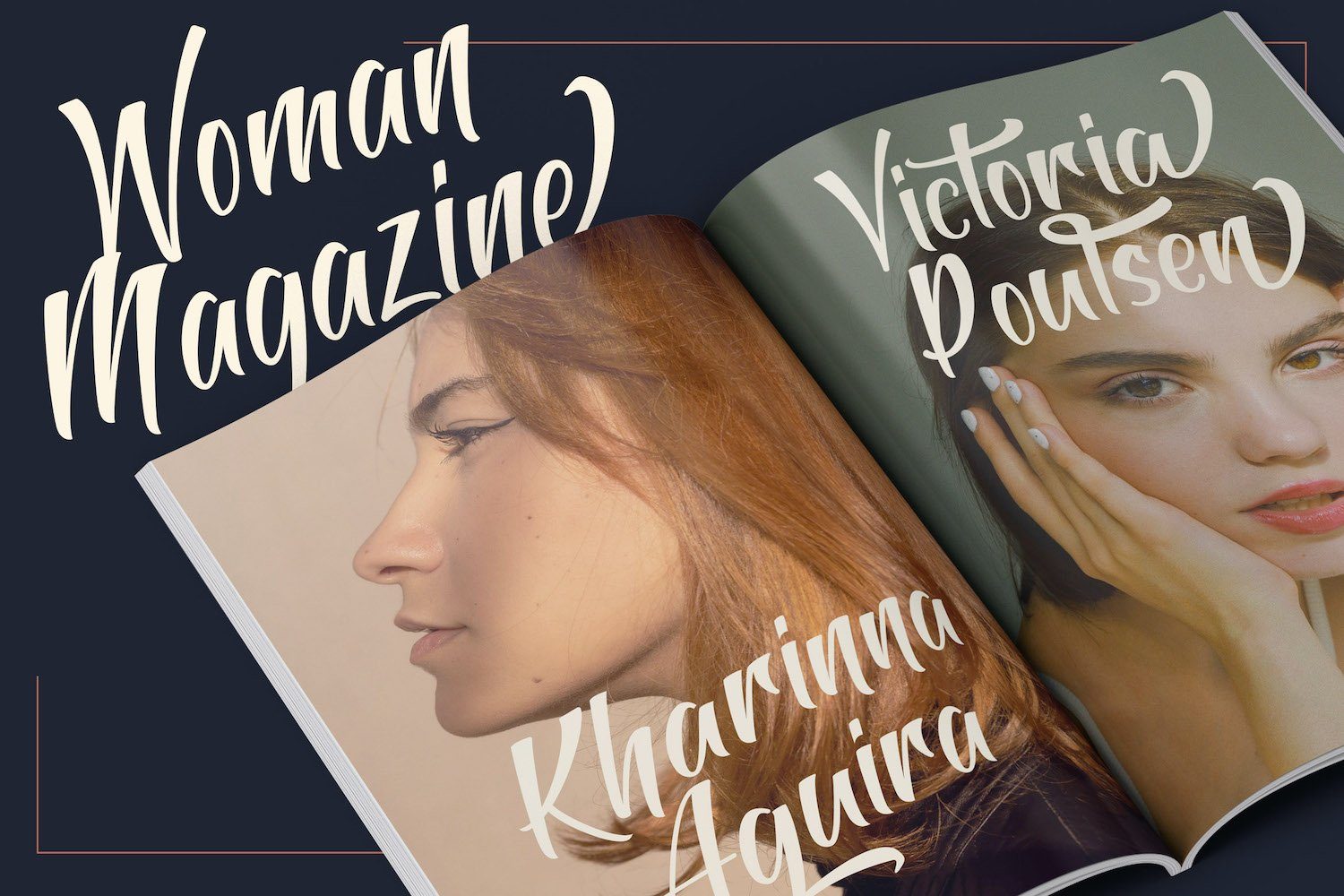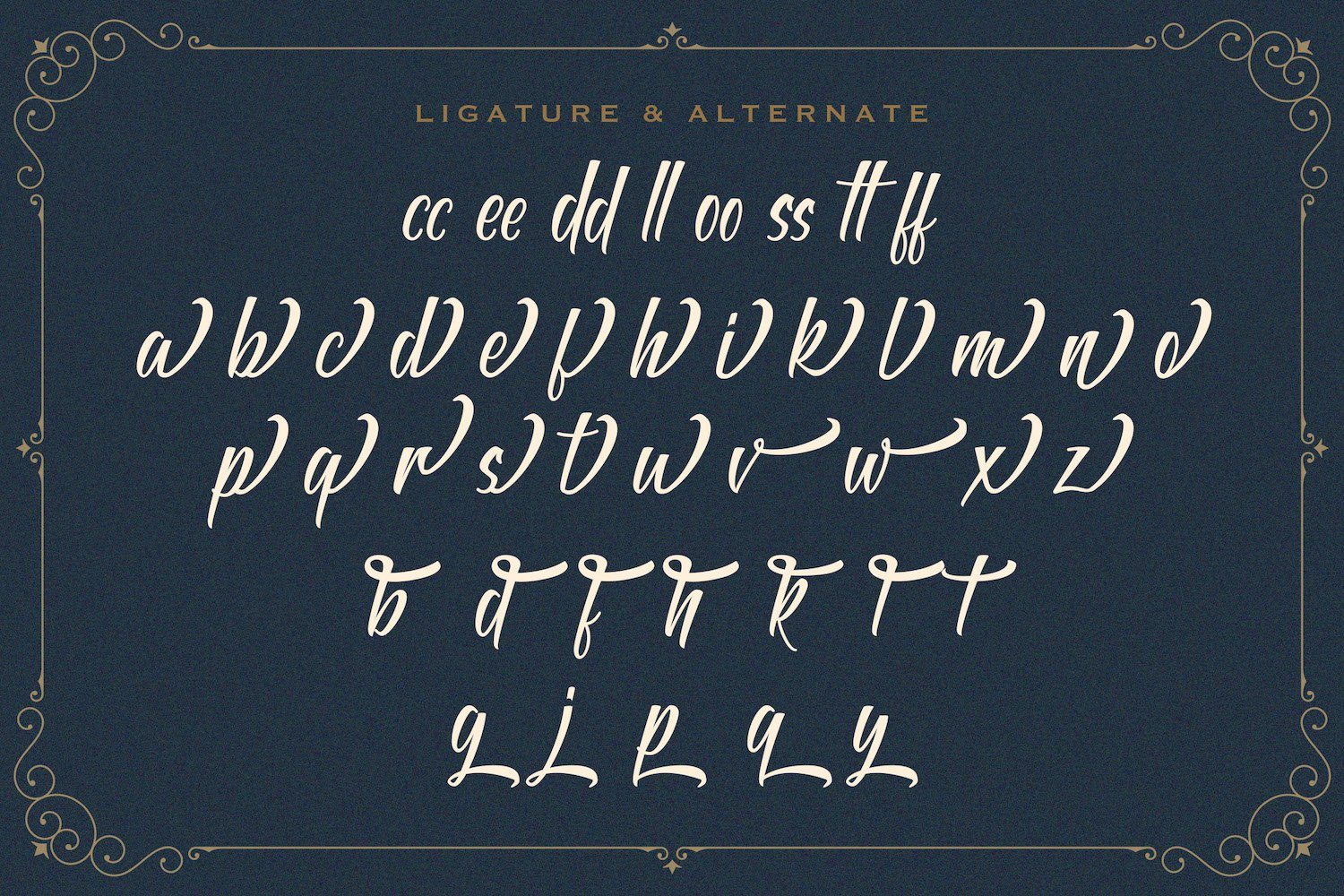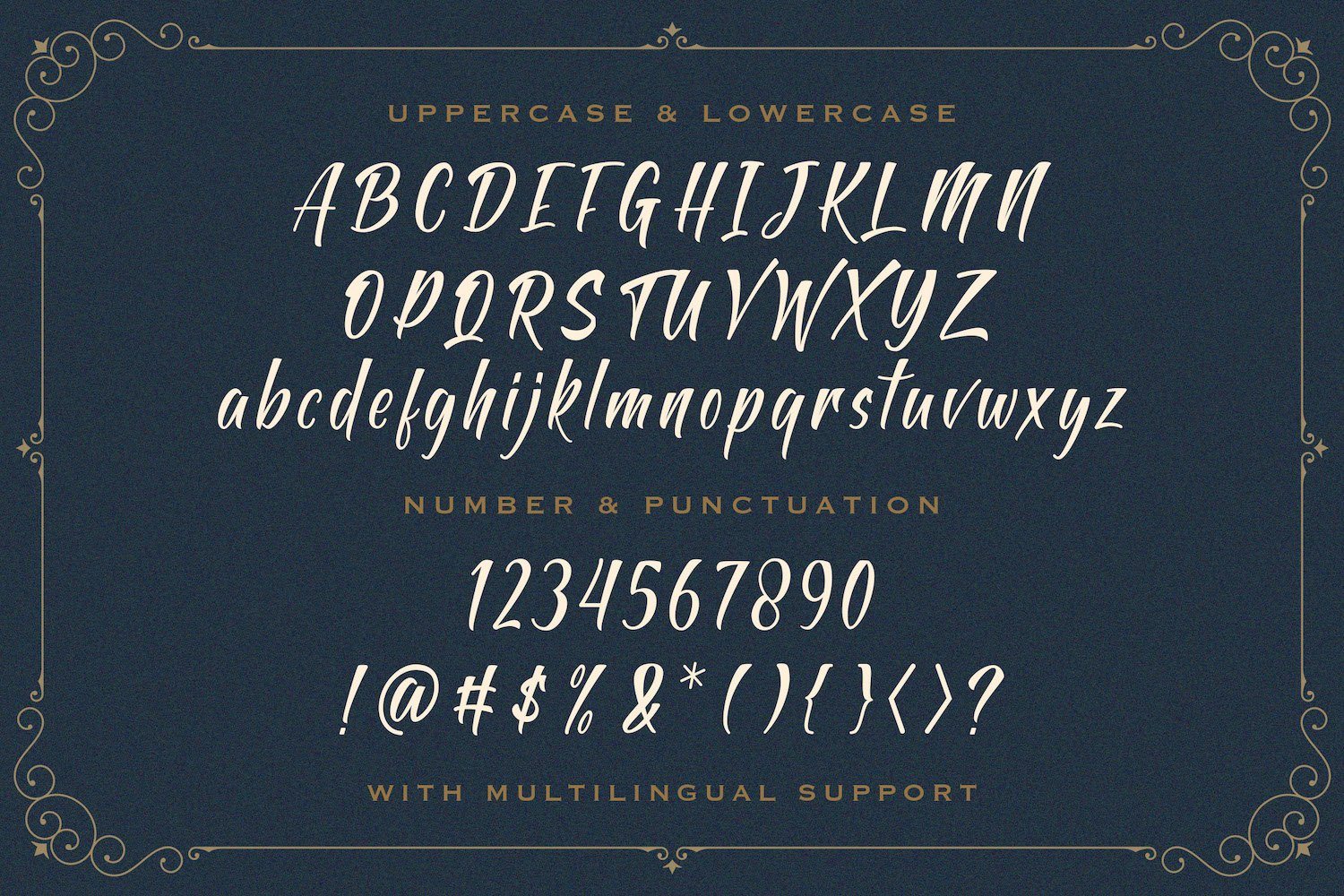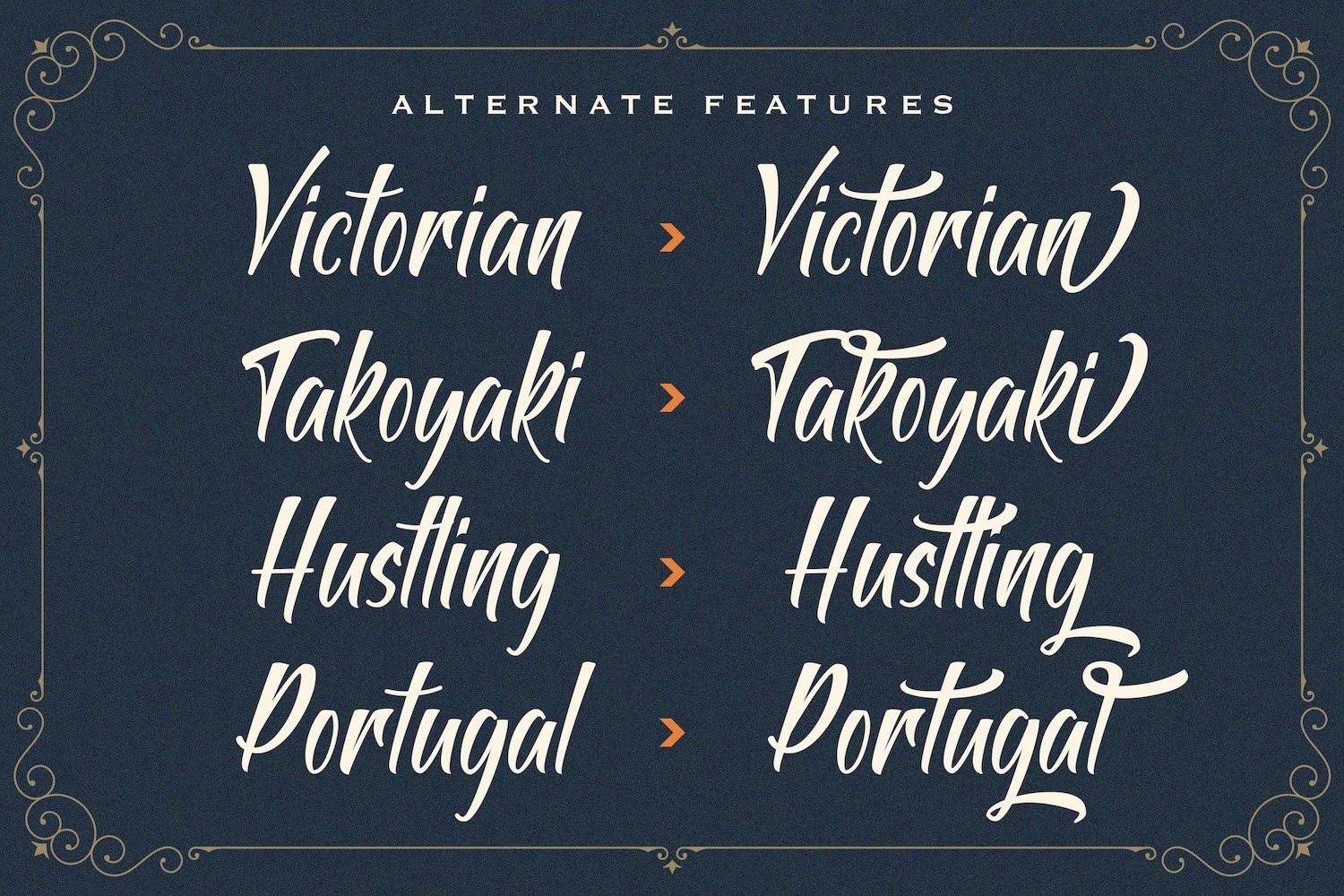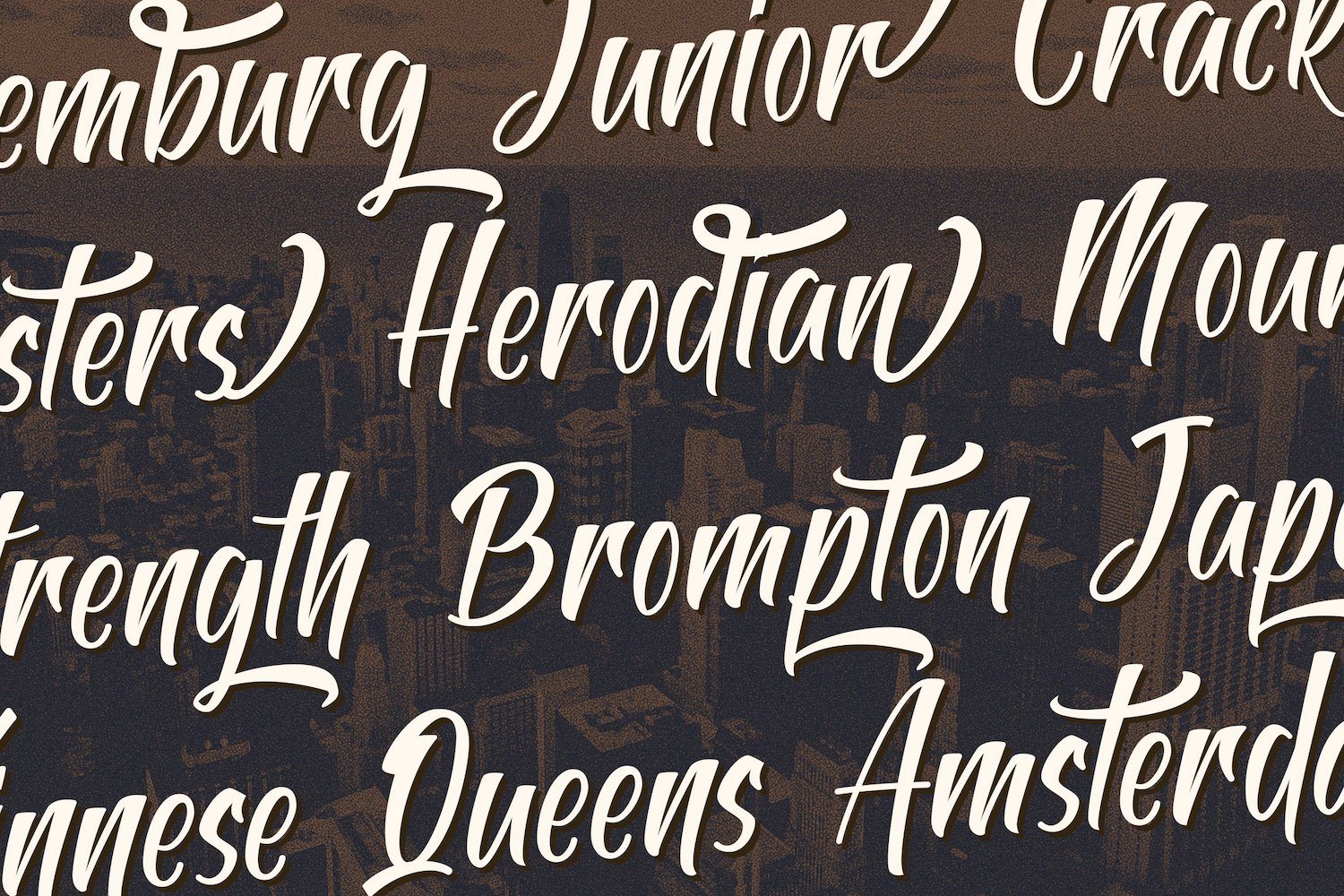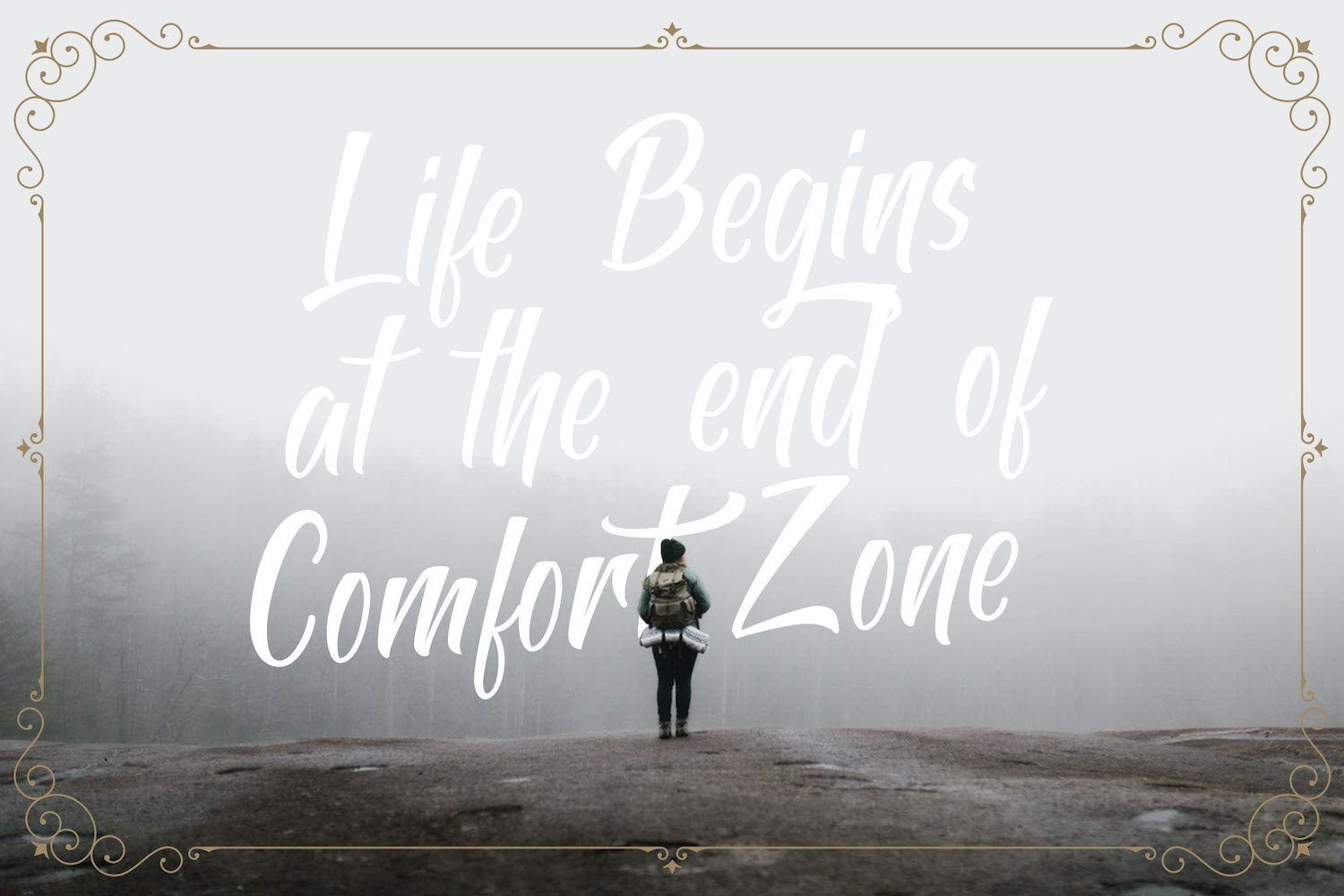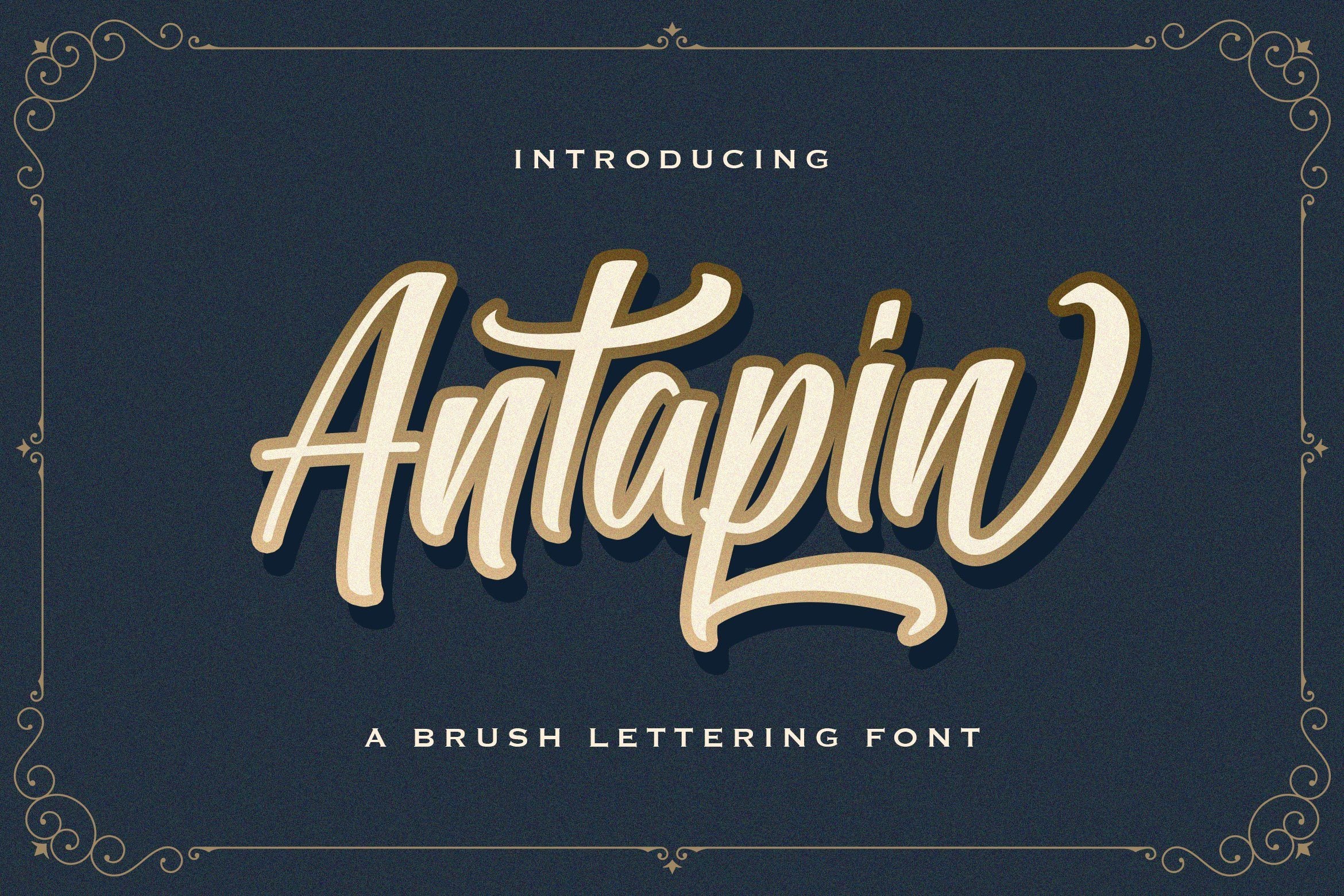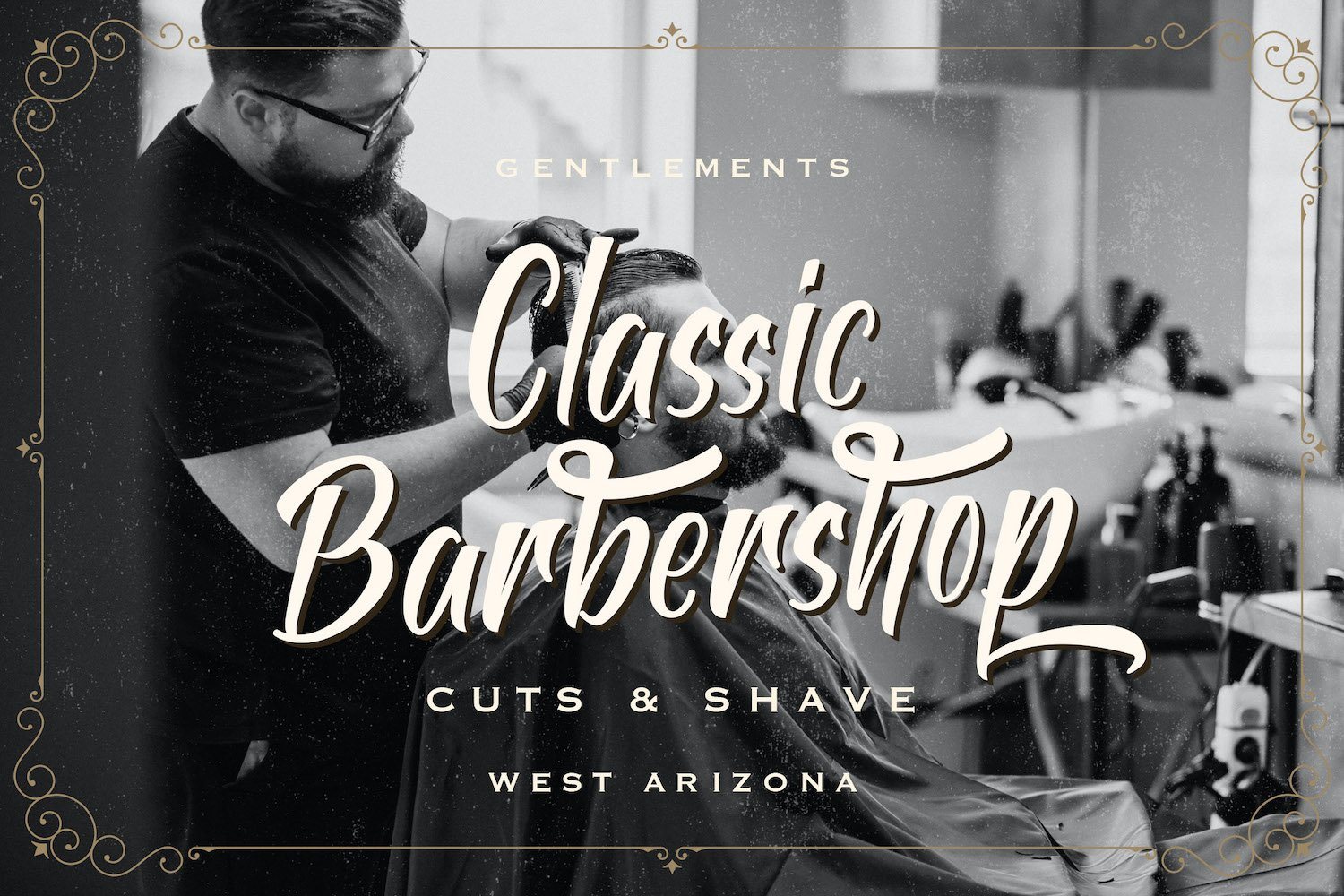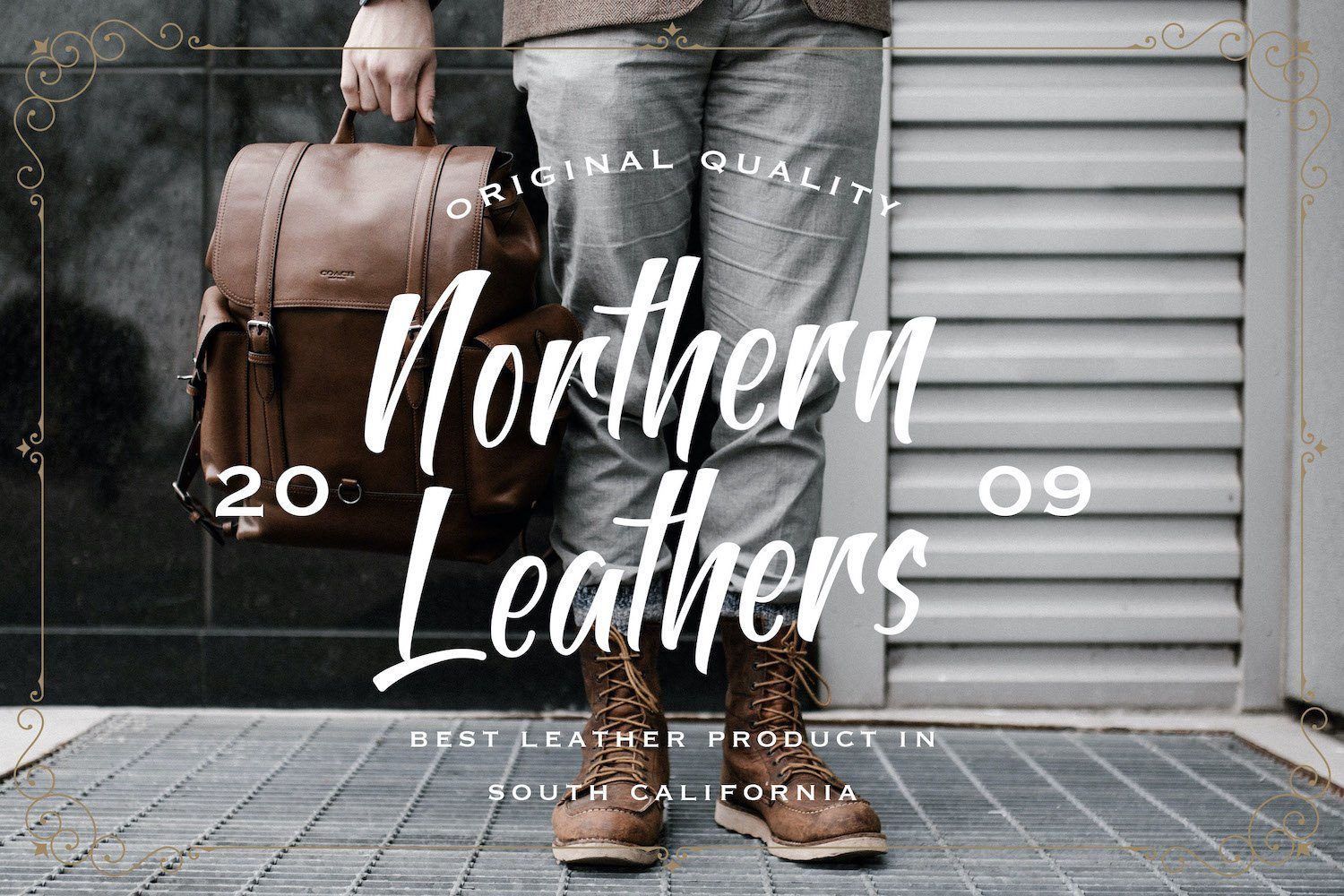
Antapin – Bold Script Font
About Antapin – Bold Script Font
Introducing Antapin – Bold Script Font Antapin is a strong and bold script font. It is curved, rounded, and has an unique vintage style, that is perfect for branding. Add it to your most creative ideas and notice how it makes them come alive! FEATURES – TTF/OTF/WOFF/WOFF2 – Alternates – Ligatures – PUA Encode – Uppercase and Lowercase letters – Numbering and Punctuations – Multilingual Support – Works on PC or Mac – Simple Installation – Support Adobe Illustrator, Adobe Photoshop, Adobe InDesign, also works on Microsoft Word Hope you Like it. Thanks.